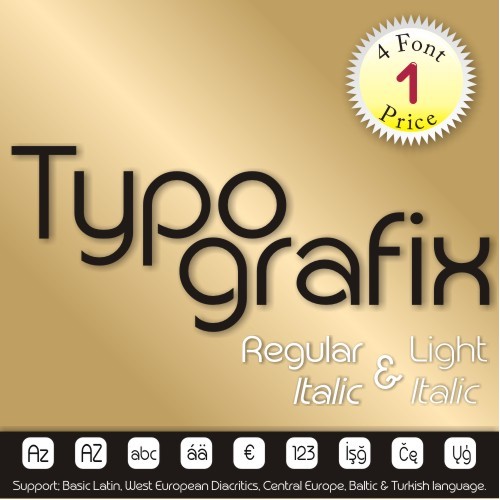
• TYPOGRAFIX (4 in 1)
Typografix: Modern Stencil Sans-Serif with Contemporary Precision
Typografix is a versatile sans-serif typeface family crafted by Mehmet Abacı and available through StudioTypo. Rooted in modern design principles, Typografix combines geometric clarity with refined simplicity, making it a go-to choice for designers looking to achieve clean, readable typography across both digital and print projects.
Each style maintains a balanced rhythm and visual harmony, enabling flexible use from body text to headings and user interfaces. The understated yet expressive character of Typografix allows it to fit seamlessly into branding, editorial layouts, web design, and creative content where clarity and contemporary appeal are key.
Modern sans-serif design: smooth lines and clear shapes for readability and versatility.
Four styles included: giving you typographic hierarchy and expressive options.
- Professional & practical: ideal for logos, interfaces, headlines, and longer text.
- Balanced proportions: well-paced letterforms that feel consistent and visually appealing.
Whether you’re designing a sleek website, a corporate identity, or a dynamic editorial layout, Typografix delivers the precision and contemporary style that modern typography demands.